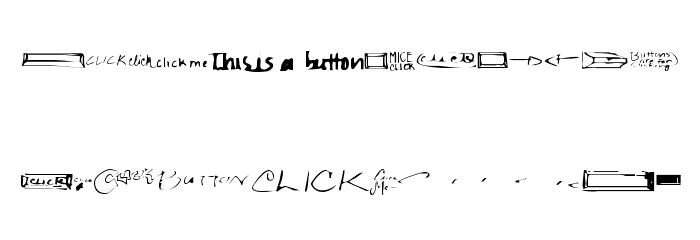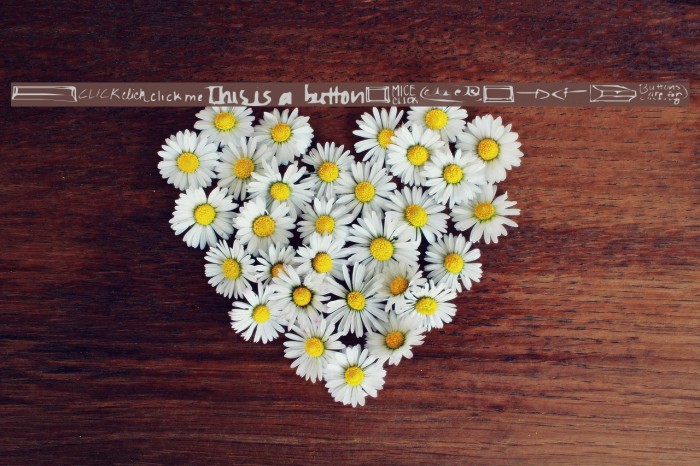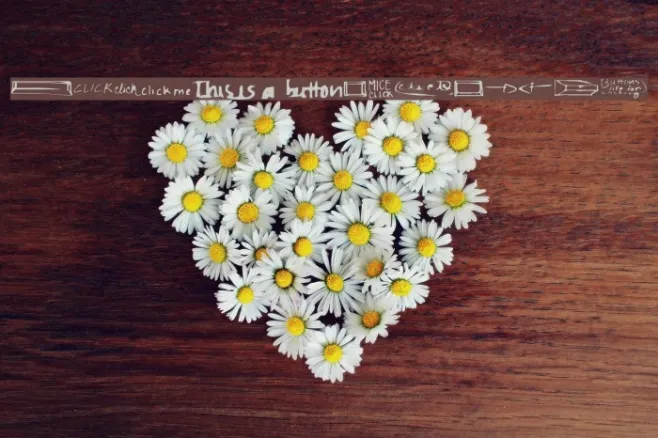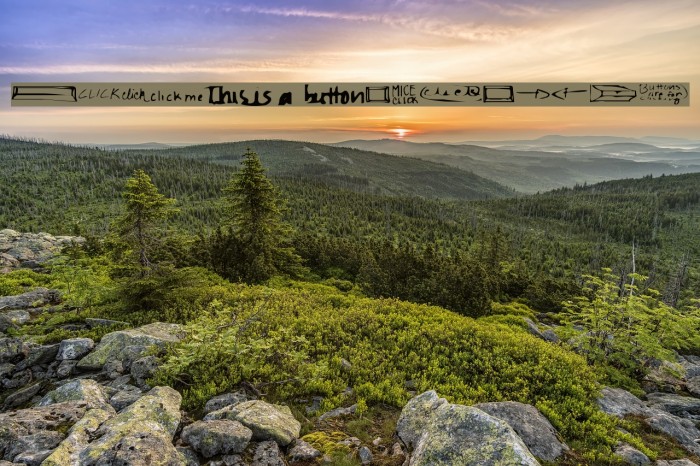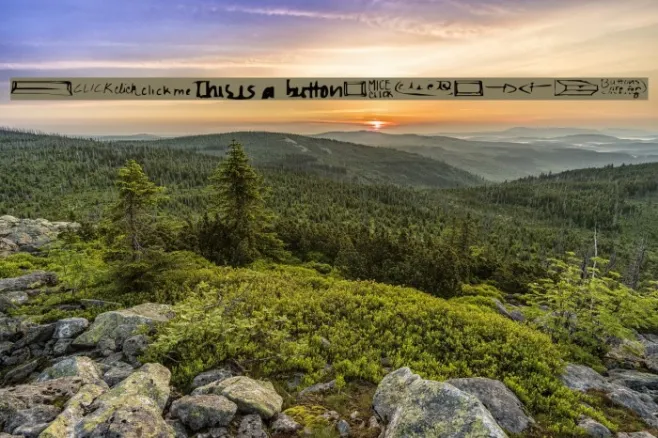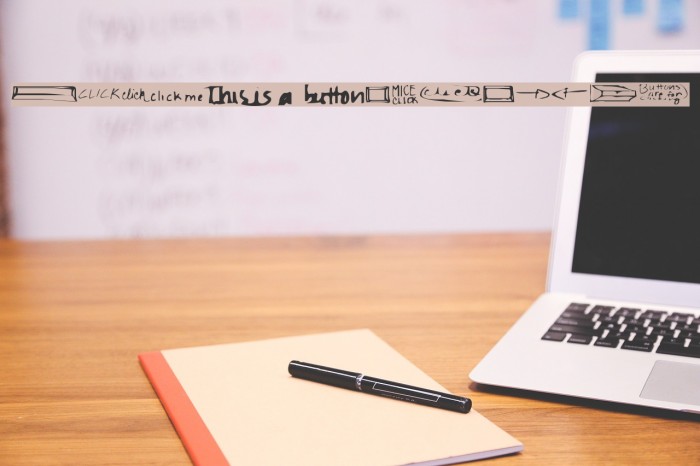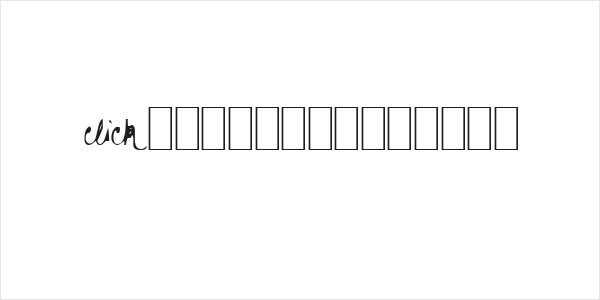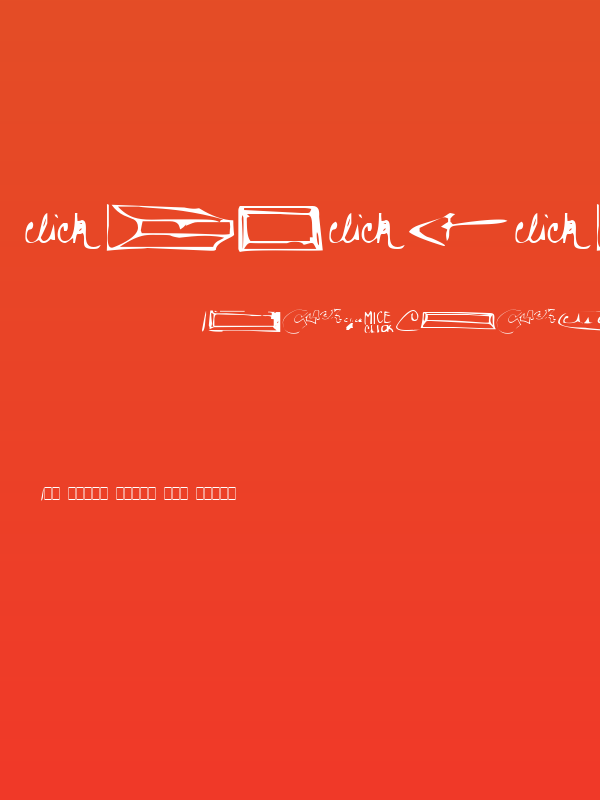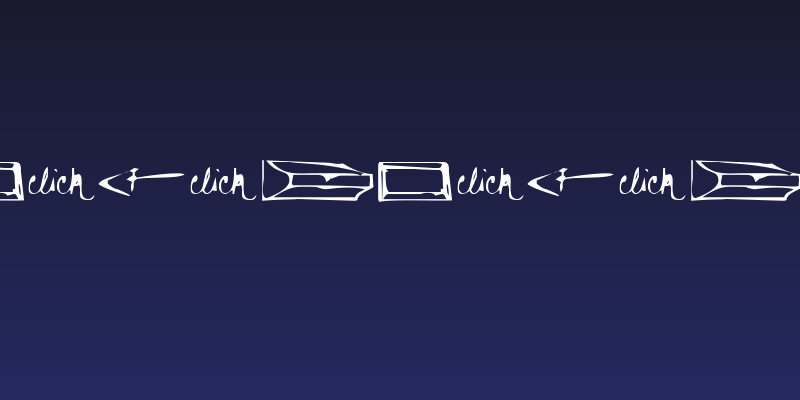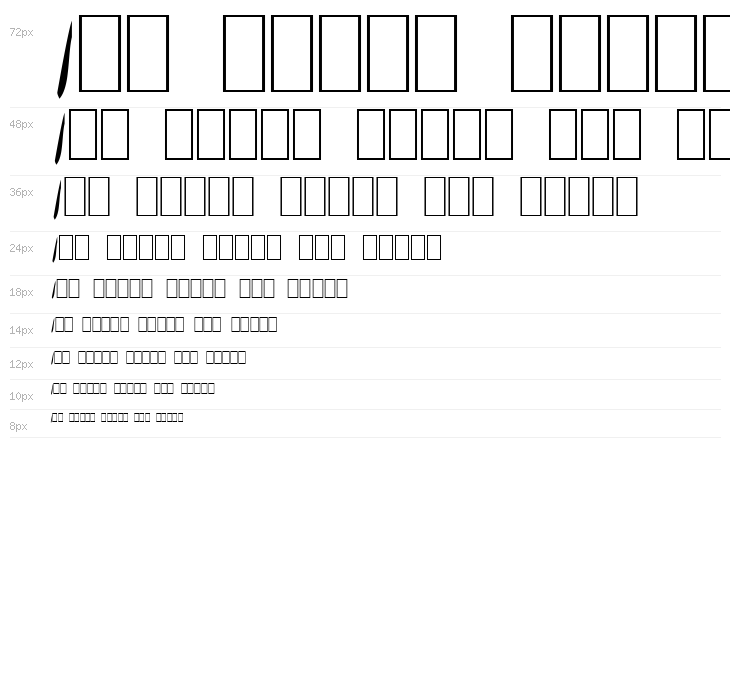
Clickclickclick Font
Clickclickclick Description
This design features a playful and dynamic style, characterized by a mix of bold and thin strokes that create a sense of movement and energy. The letters are irregular and whimsical, with varying heights and angles, giving it a hand-drawn, artistic feel. The overall appearance is informal and fun, making it suitable for creative and casual contexts. The use of different stroke widths adds a unique texture and depth, enhancing its visual appeal.
| Overall Style | Playful, Artistic, Informal |
| Use Case | Logos, Posters, Creative Titles |
| Proposed Projects | Ideal for creative projects such as children's book covers, playful branding, artistic posters, and informal invitations. |